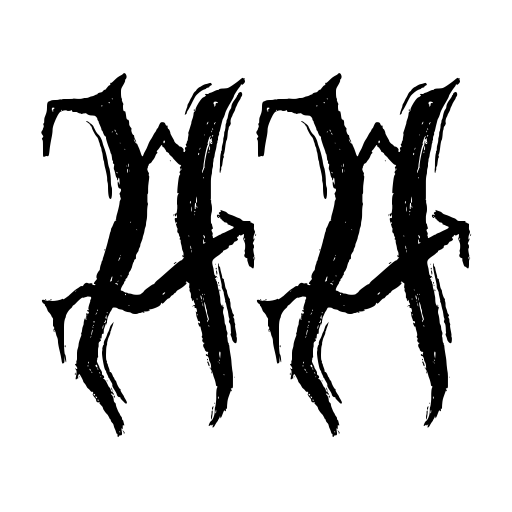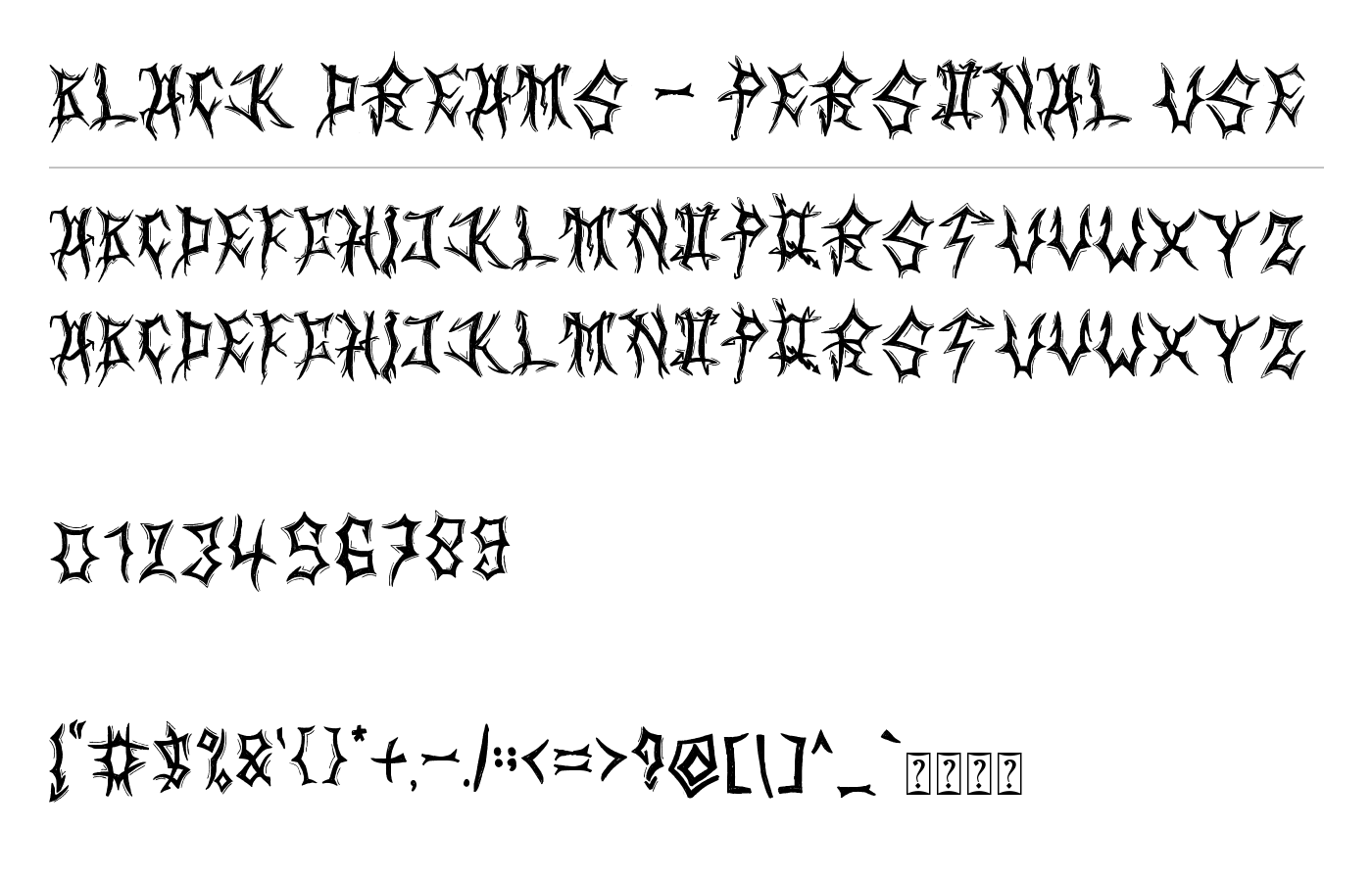
Black Dreams is a decorative, highly stylized display font with sharp, jagged edges and an intense, gothic-inspired vibe. Its bold, condensed letterforms and dramatic spikes make it perfect for edgy designs, such as posters, logos, or branding that aim to convey darkness, mystery, or rebellion. This font excels in headline use where its unique, striking personality can really stand out.
Black Dreams - Personal use Font
About Black Dreams - Personal use Font
| Font family | Black Dreams - Personal use Font |
| Designer | Letterara 2019 |